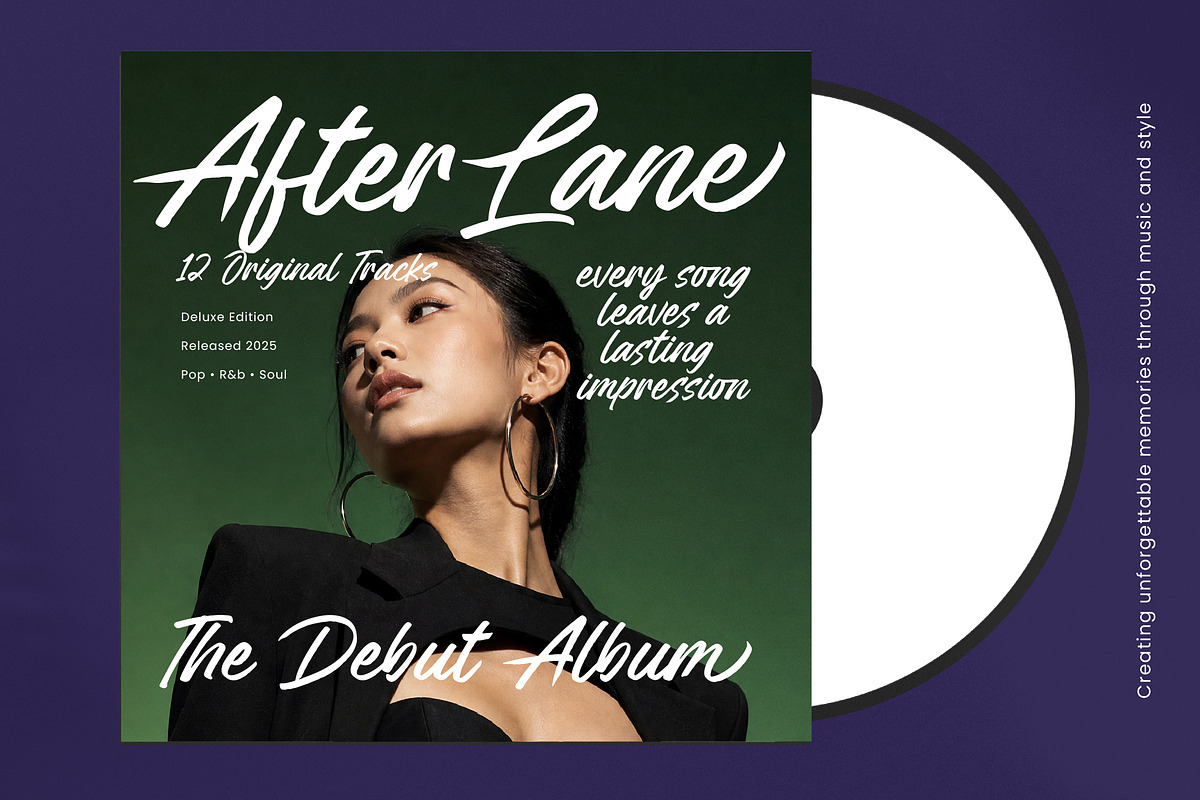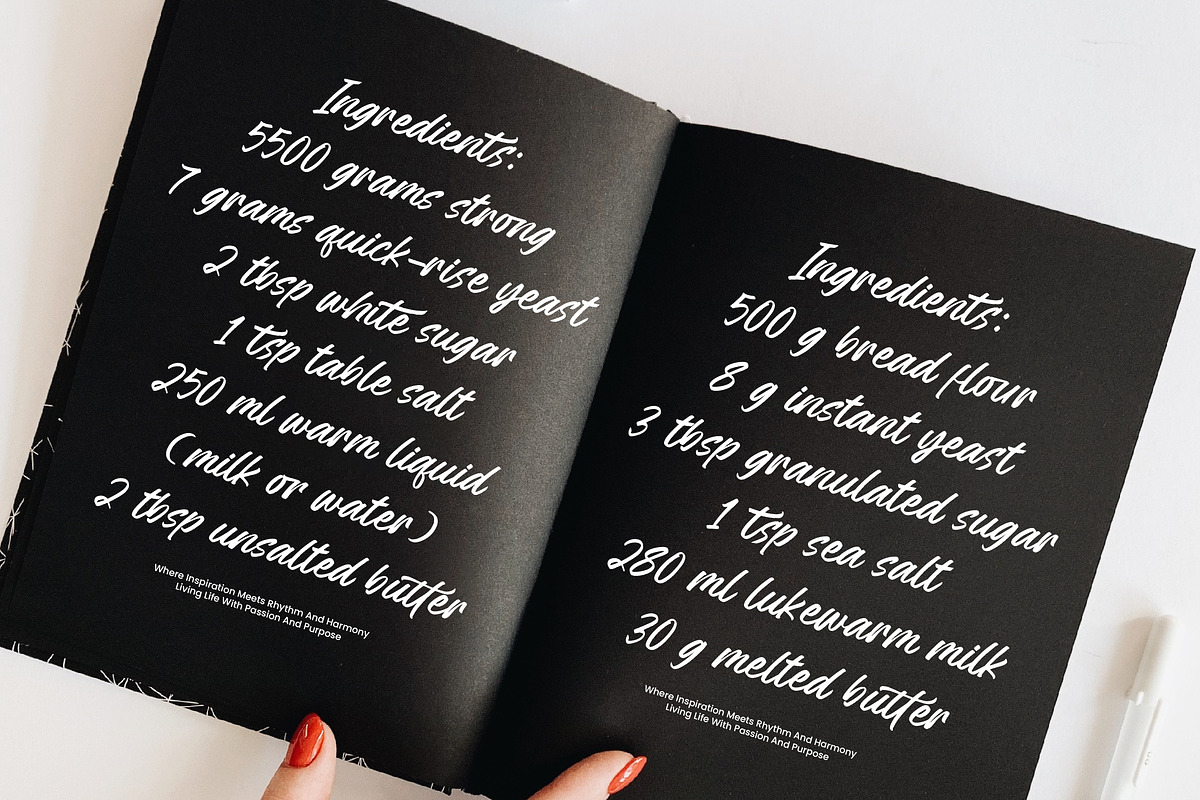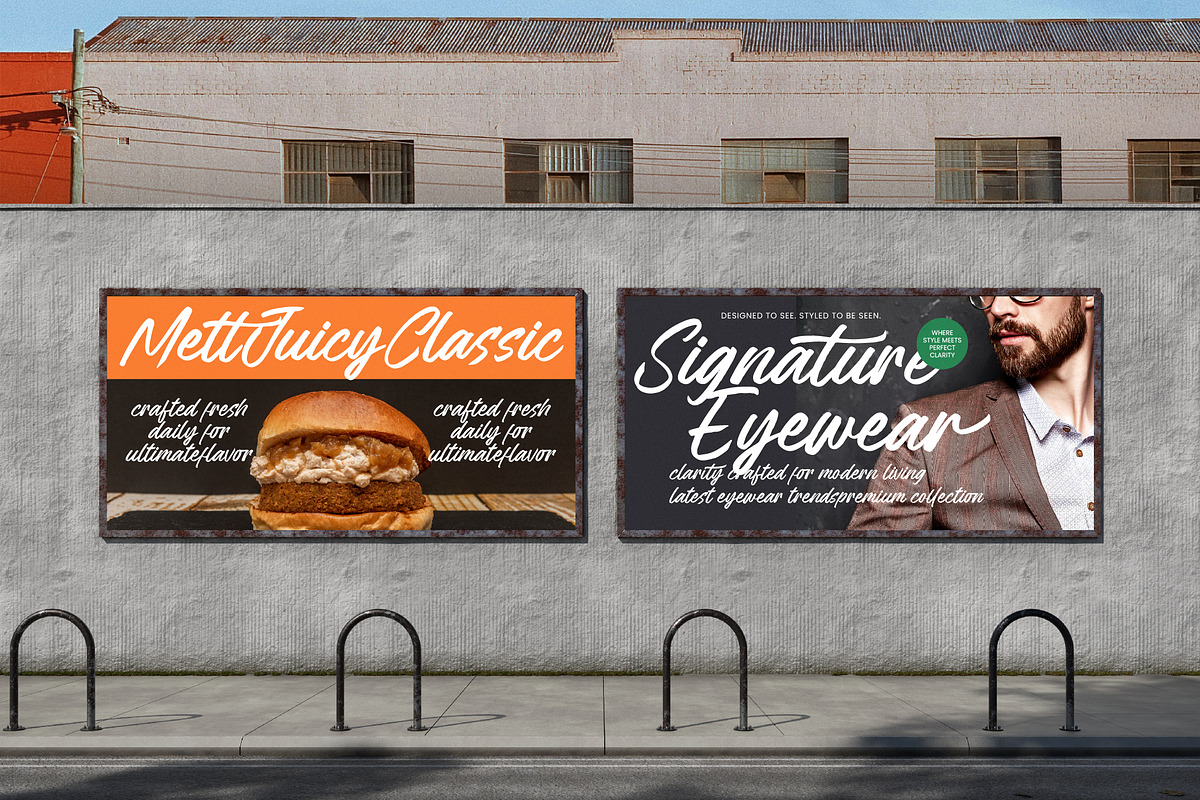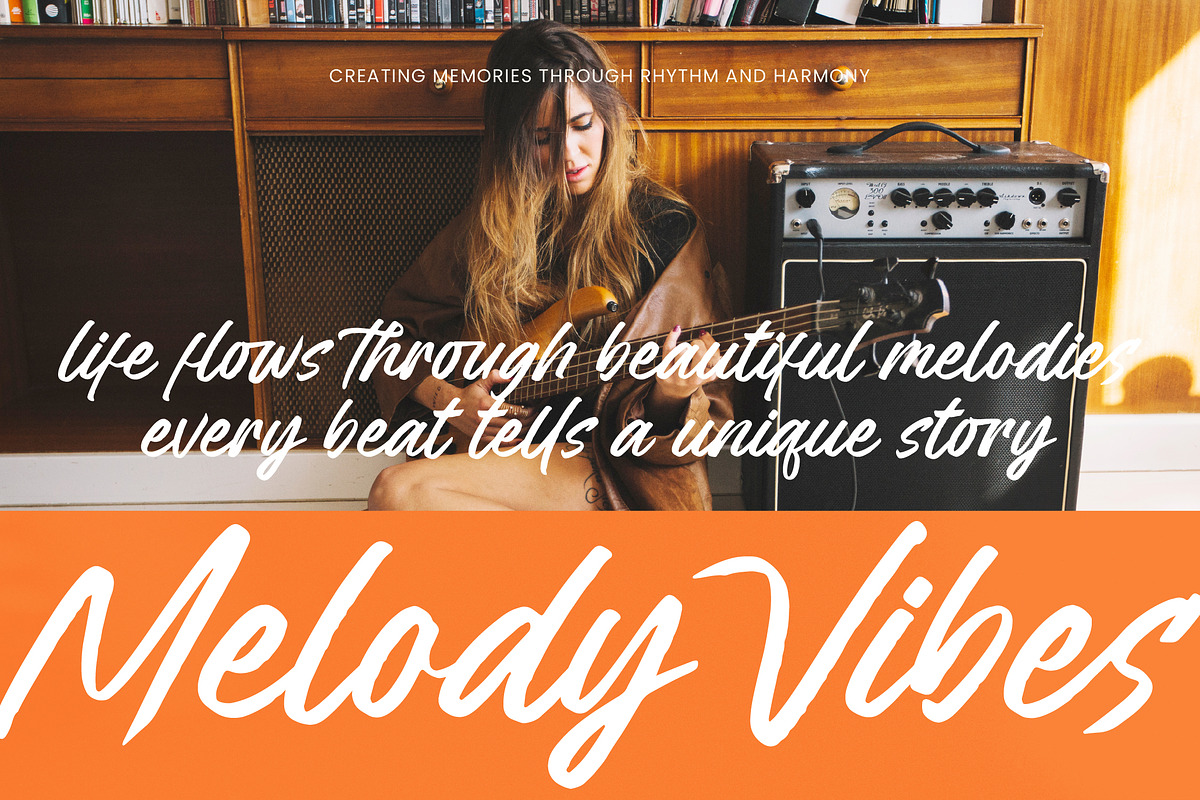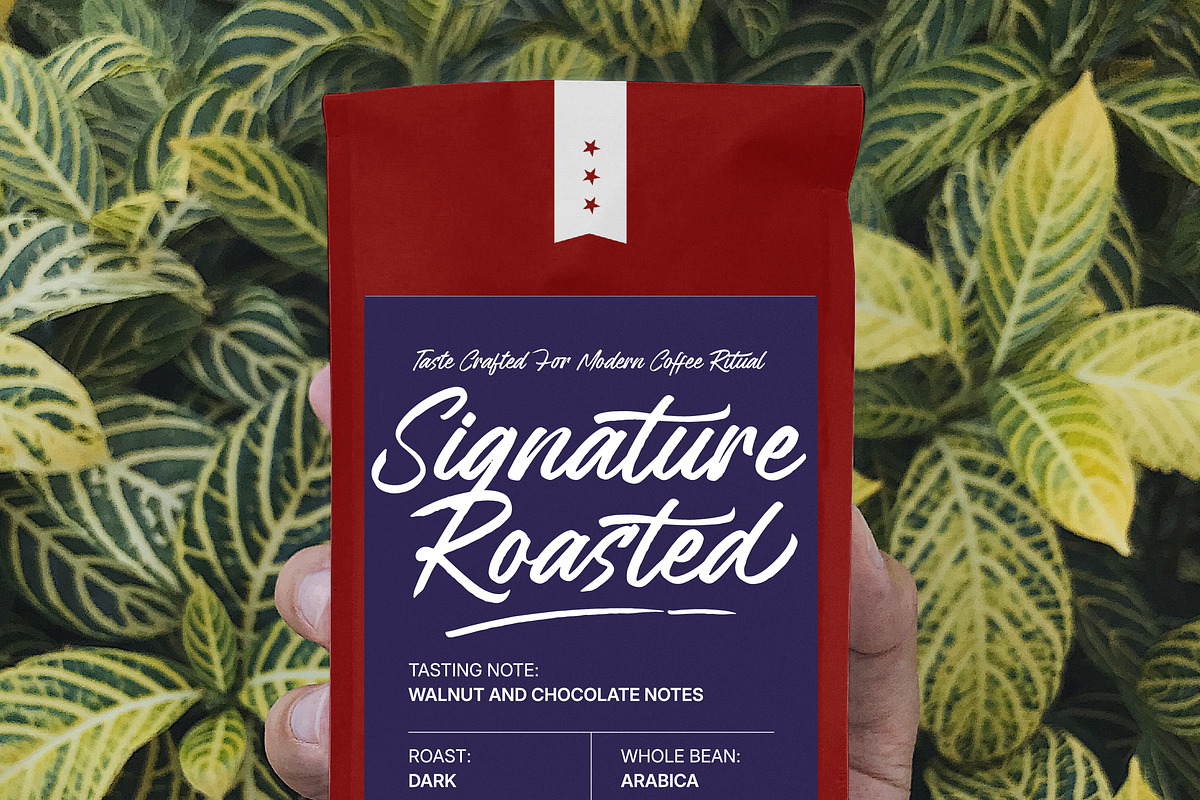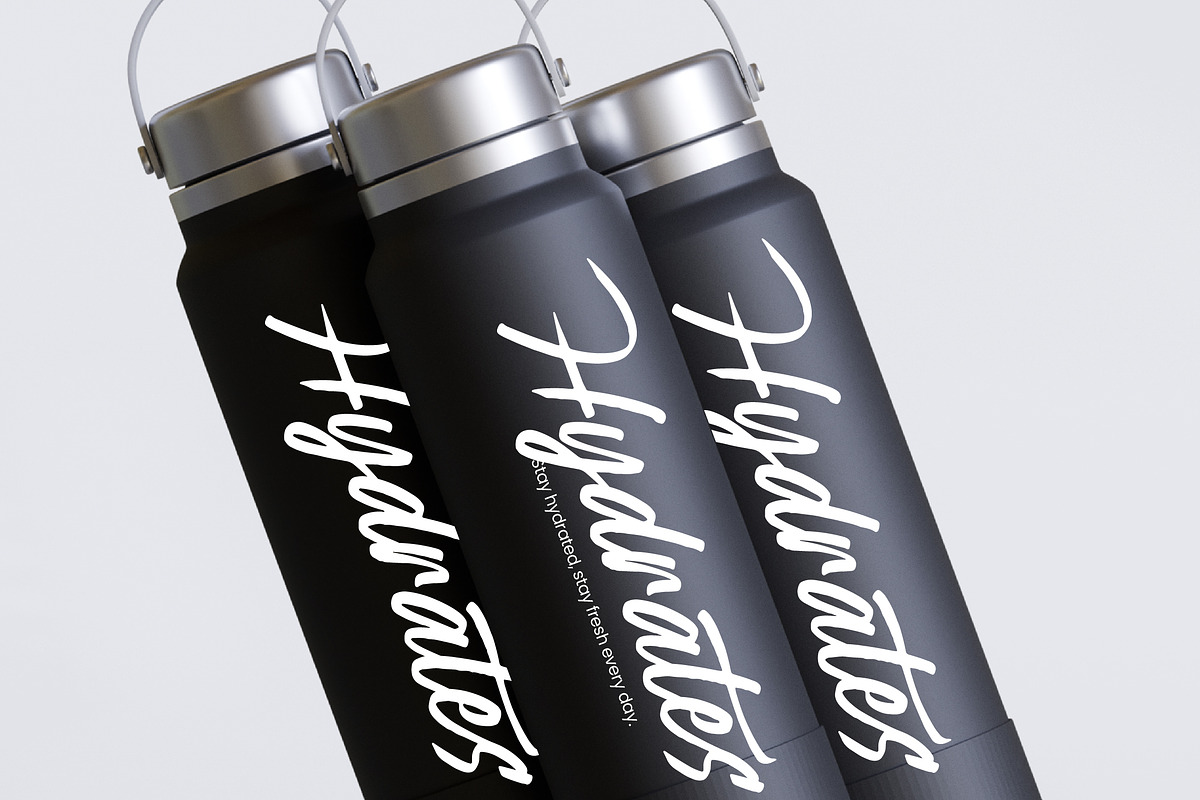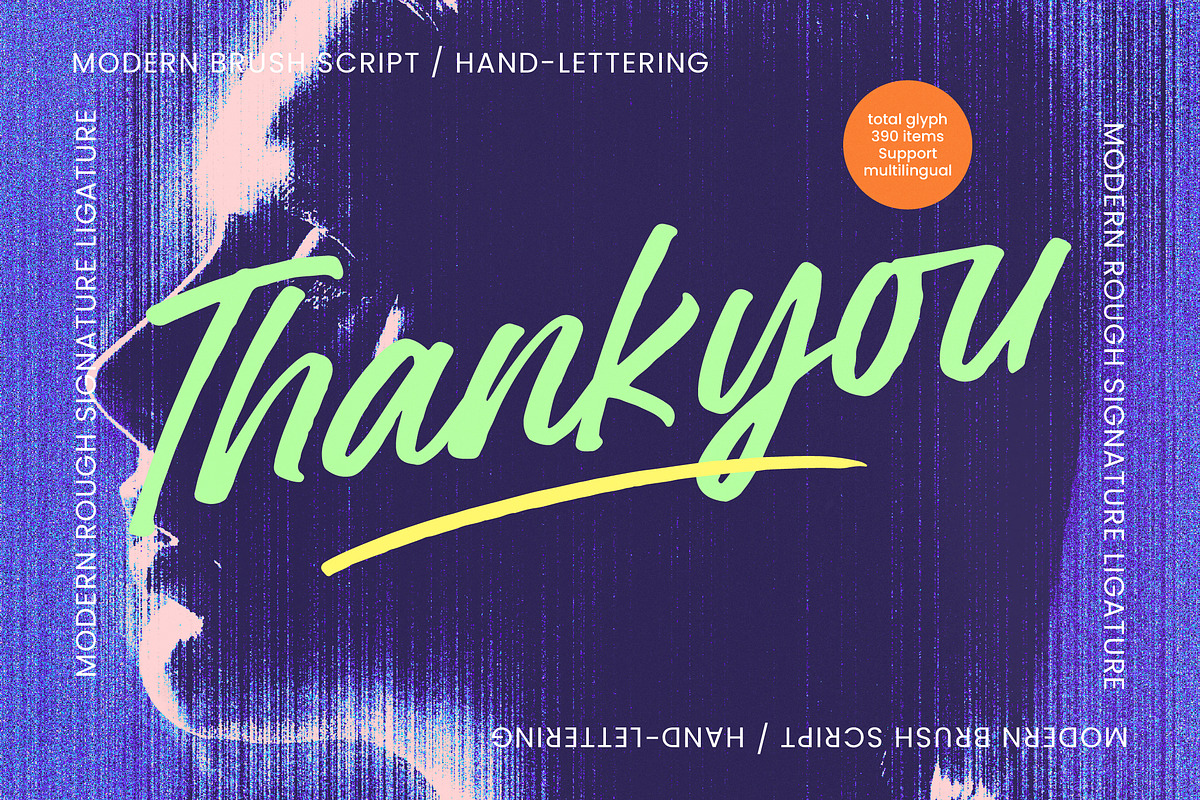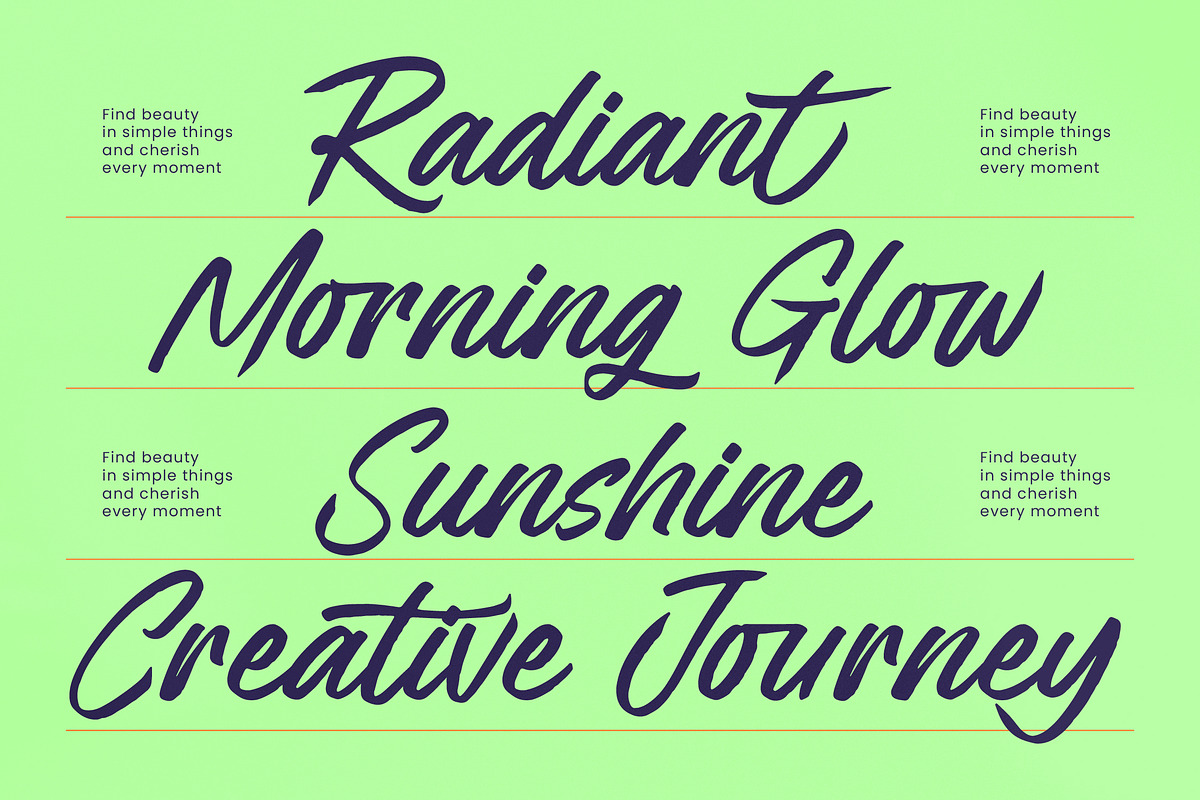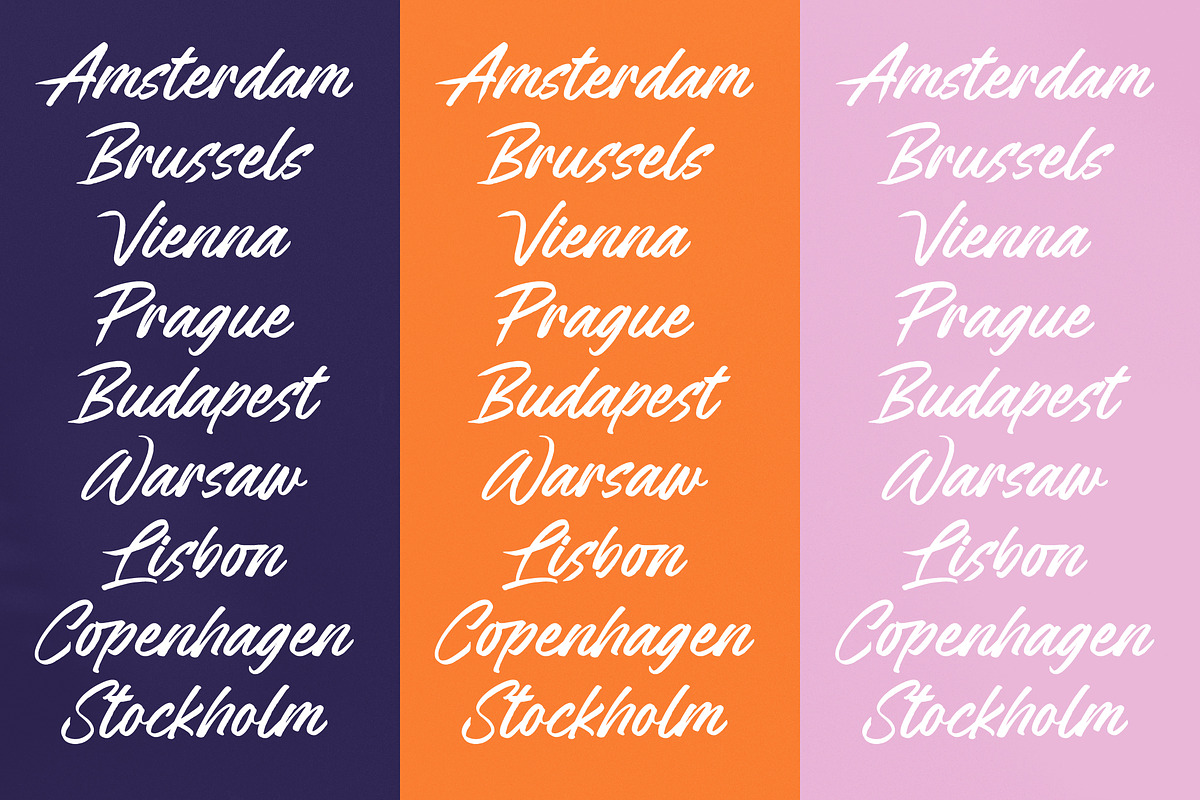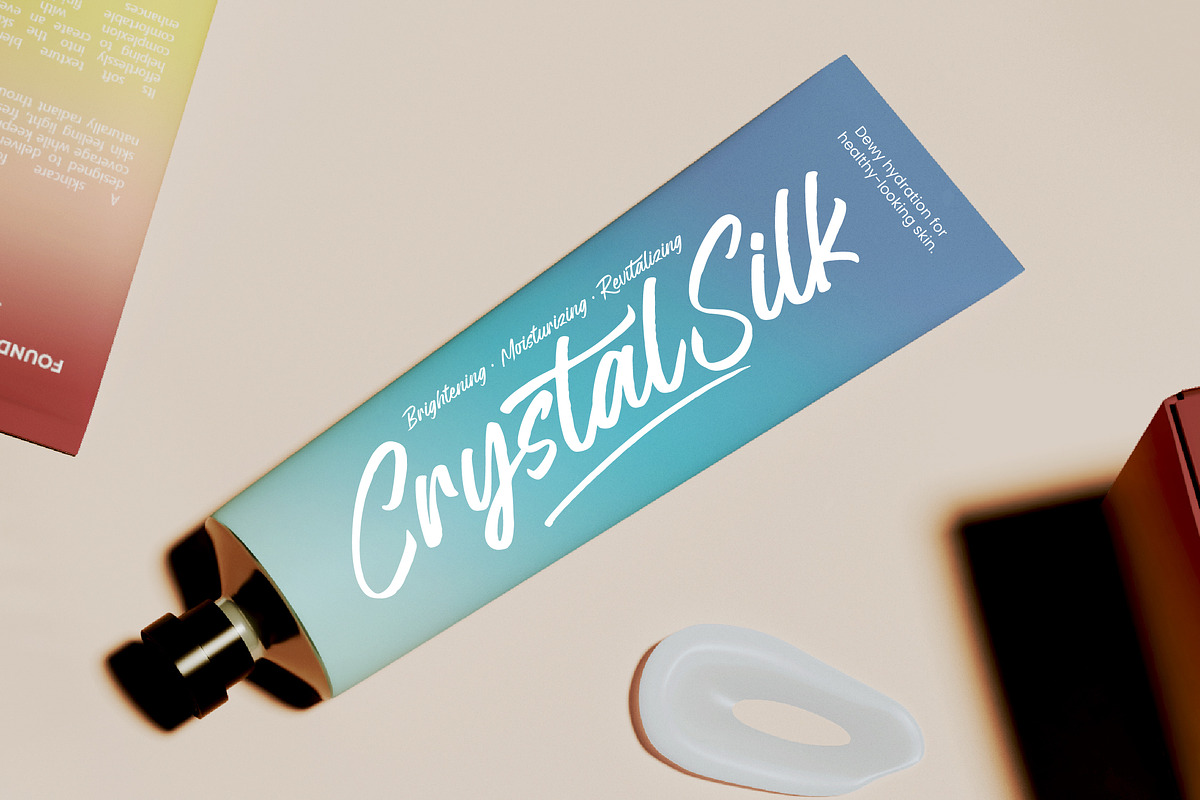
Legont Heritage Modern Brush Script
Legont Heritage - Modern Brush Script
Elevate your creative vision with a typeface that embodies raw energy and sophisticated craftsmanship. Legont Heritage - Modern Brush Script is the premier choice for designers seeking an authentic, hand-lettered aesthetic that resonates with power. This font features bold brush strokes and a dynamic flow that captures the essence of contemporary artistry. By blending organic textures with a modern script structure, it delivers a high-impact visual experience that commands attention and adds a personal, human touch to any digital or print canvas.
Unlock unparalleled creative flexibility with a robust set of typographic features designed for professional use. Boasting a comprehensive library of 390 glyphs, Legont Heritage - Modern Brush Script offers an impressive array of 23 ligatures and 34 alternates. These custom options allow for natural-looking variations and seamless character connections, ensuring your typography feels unique and tailored. With its extensive multilingual support, Legont Heritage - Modern Brush Script adapts seamlessly across global markets, making it incredibly versatile for international projects.
Discover the perfect typographic partner for high-end projects that require a distinct and memorable personality. This typeface is an ideal application for luxury branding, high-impact packaging design, and vibrant apparel graphics. Legont Heritage - Modern Brush Script is also perfect for editorial layouts, social media headers, and event invitations where a sense of movement and flair is required. Its bold presence ensures that your message remains legible while projecting an aura of premium quality and creative edge.
Transform your design portfolio and captivate your audience with a font that bridges the gap between classic heritage and modern trends. Whether you are developing a logo identity or a full-scale marketing campaign, Legont Heritage - Modern Brush Script provides the stylistic depth needed to stand out in a crowded marketplace. It is a versatile design asset that balances expressive freedom with professional execution. Choose Legont Heritage - Modern Brush Script to inject visual energy and authentic character into your next masterpiece, ensuring lasting impact and commercial success.